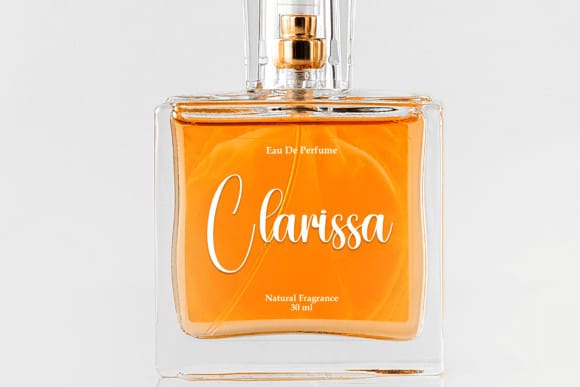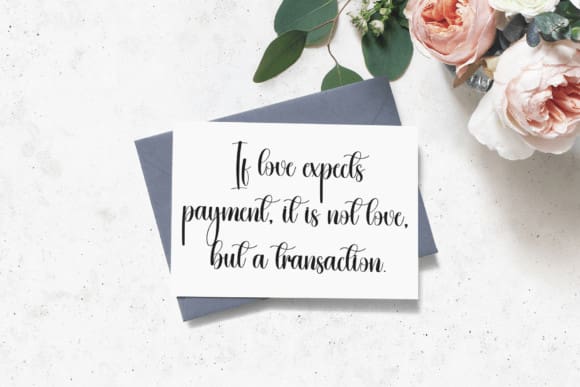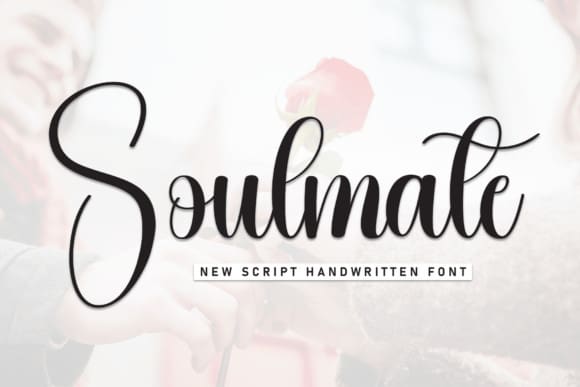
Soulmate Script Typeface
Soulmate Script Typeface is a charming handwritten font exuding elegance and grace. Its fluid strokes and gentle curves mimic the movements of a dancer, evoking a sense of beauty and sophistication. Perfect for invitations, greeting cards, and branding projects, this font adds a touch of whimsy and romance to any design.